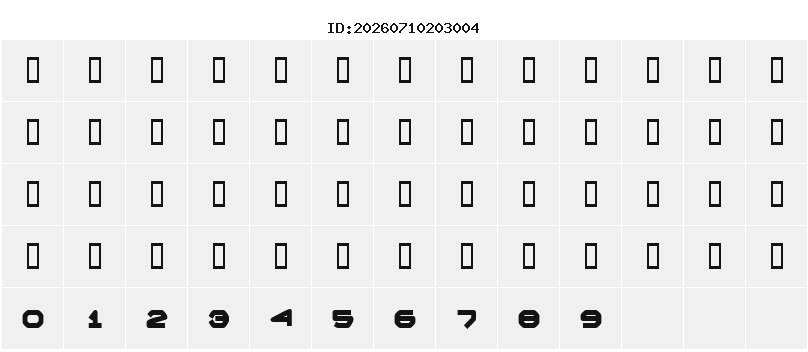
About Gagua Bold.ttf
Gagua Bold.ttf is a modern, elegant sans-serif font designed for ultimate readability and visual harmony. Perfect for branding, headlines, web design, and print materials.